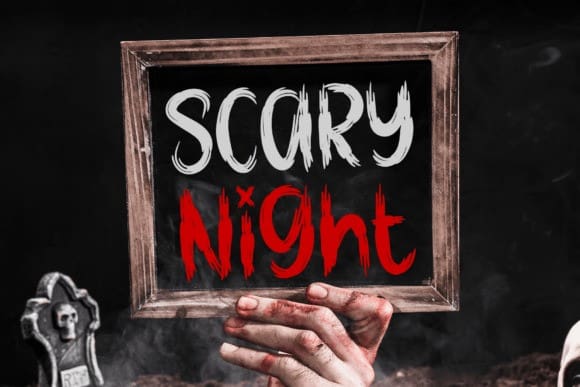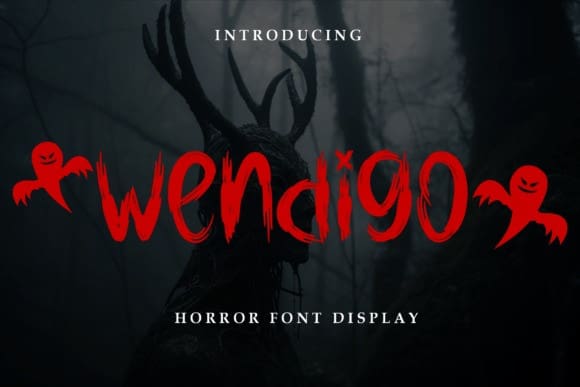
Wendigo Horror Font
Wendigo Horror Font a bone-chilling script font that unleashes the dark and untamed spirit of Halloween. With its jagged edges and twisted curves, this font embodies the ferocity of the mythical creature. Perfect for horror-inspired designs, haunting invitations, and sinister projects, Wendigo Font will send a shiver down your spine.